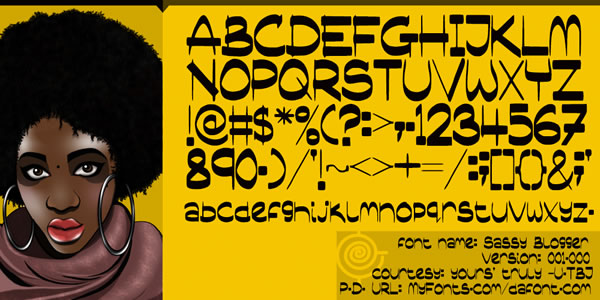
Sassy Blogger Font
About Sassy Blogger Font
This typeface can be used for various purposes such as headings, logos, posters, badges, book covers, newspapers, and much more!